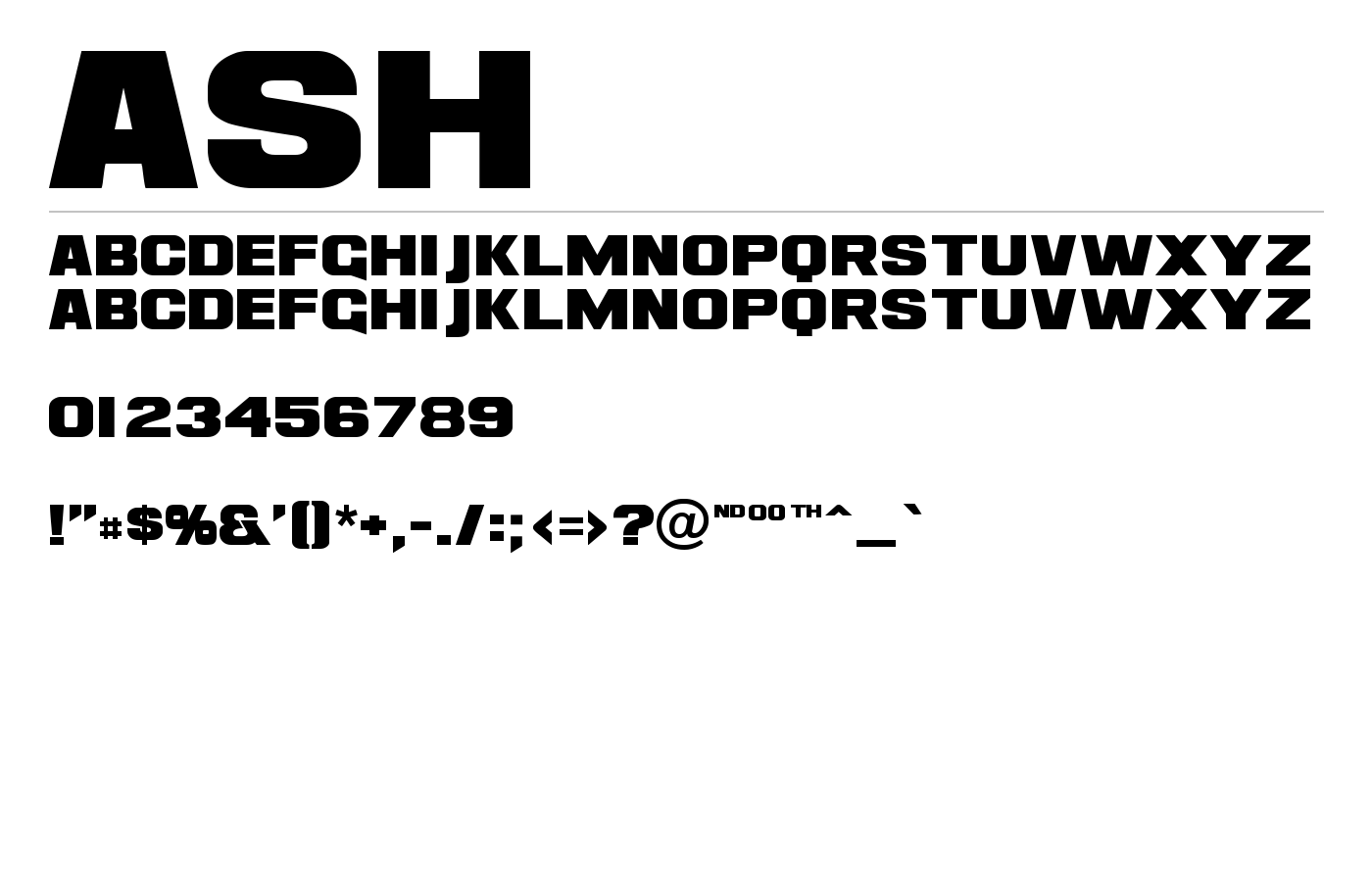
Ash Font is a bold, heavy sans serif typeface with a strong, industrial feel. Its wide, solid letterforms feature minimal contrast and distinctive geometric cuts, making it ideal for impactful headlines, logos, and branding that demand attention and convey strength. This font works best where a modern, assertive style is needed, such as posters, packaging, and urban or tech-focused designs.
Ash Font
About Ash Font
| Font family | Ash Font |
| Designer | Billy-Joe Lee |